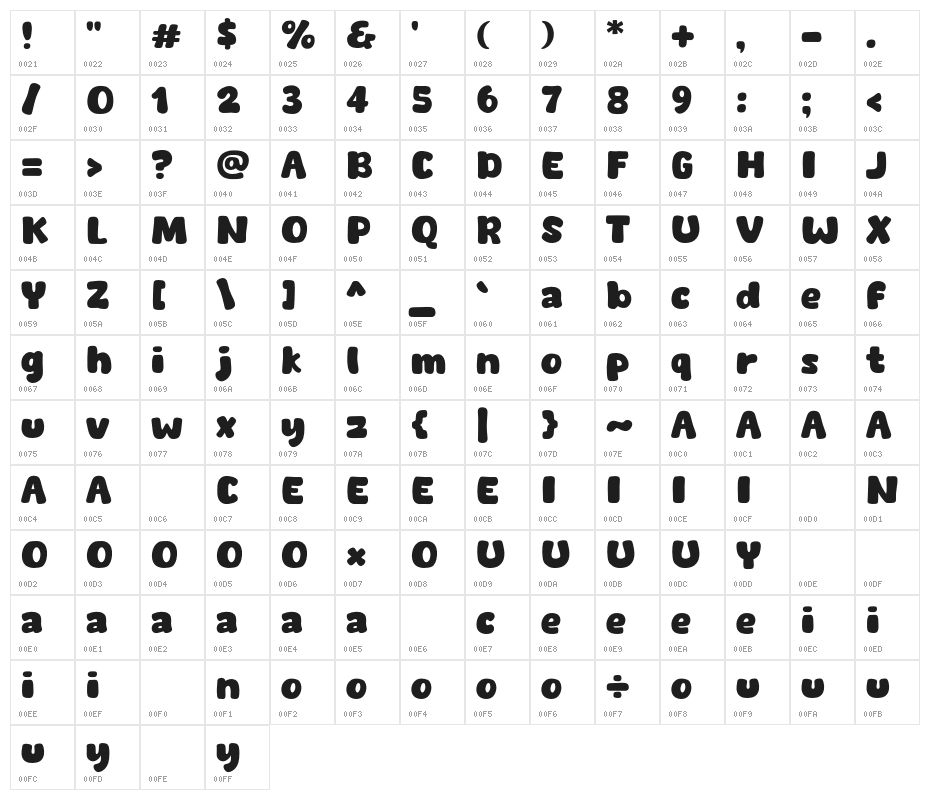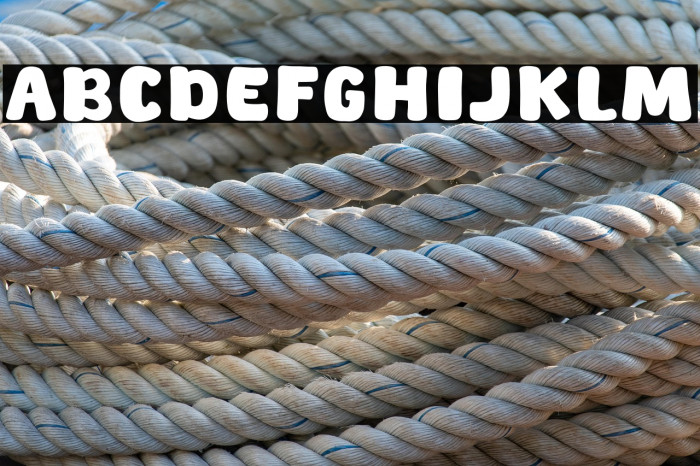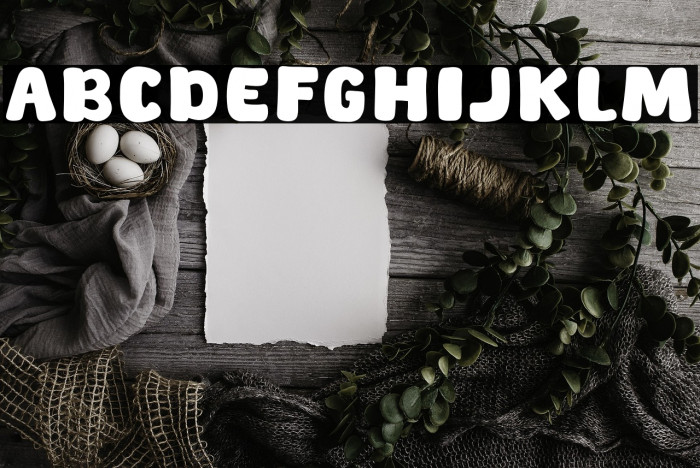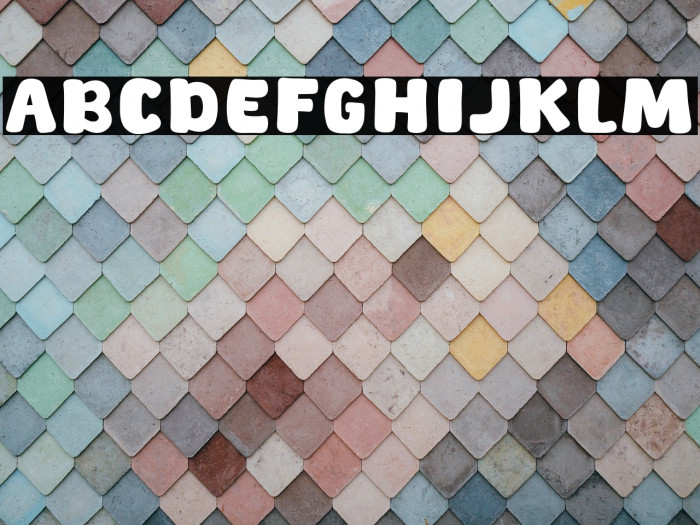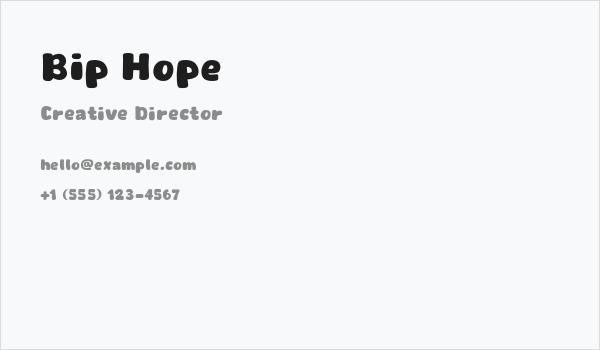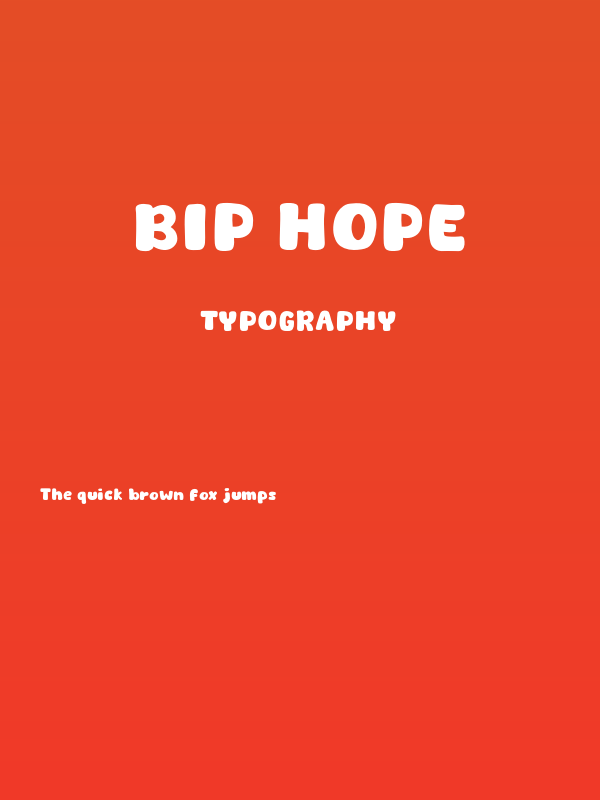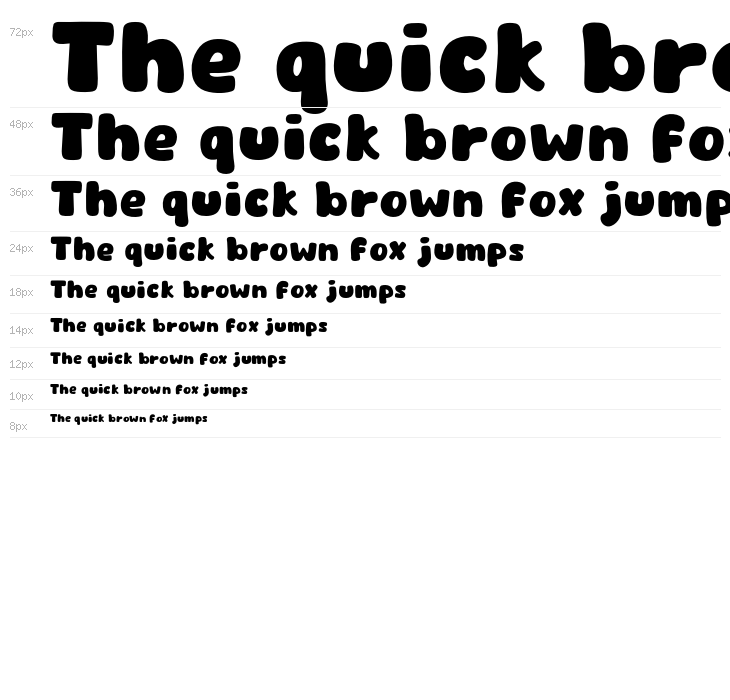
Bip Hope Font
Bip Hope Description
This font features a playful and bold design with rounded edges, giving it a friendly and approachable appearance. The characters are uniformly thick, contributing to a consistent and cohesive look across both uppercase and lowercase letters. The numbers and special characters maintain this style, ensuring readability and visual harmony. Its bubbly and soft aesthetic makes it ideal for projects that require a touch of whimsy and fun. The font's design is well-suited for children's books, playful branding, or any creative work that benefits from a lively and informal typeface.
| Proposed Projects | Children's books, playful branding, creative projects, informal invitations. |